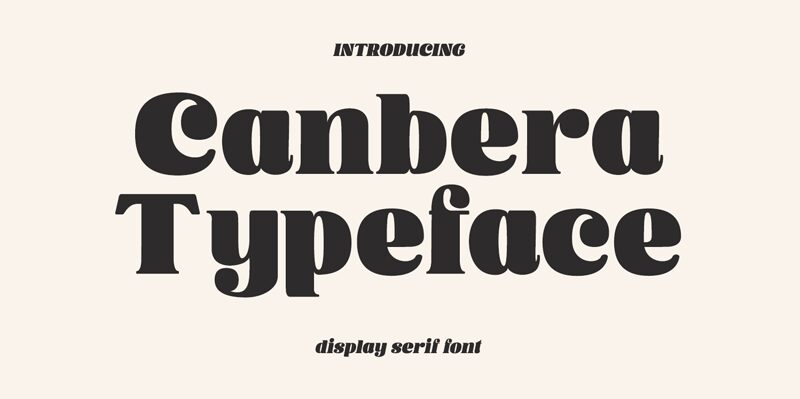
Canbera, designed by Viswell Studio, is an extraordinary extra-bold serif font that exudes a retro charm. With its distinctive and assertive strokes, this font adds a bold statement to your projects. Its timeless elegance and vintage appeal make it perfect for branding fashion labels seeking a nostalgic touch. For magazine layouts, Canbera's strong presence commands attention in headlines and subheadings, enhancing the overall visual impact. Whether used in logo design or packaging for artisanal products, this versatile typeface effortlessly combines modernity with a hint of nostalgia, making it perfect for any project that craves a touch of retro sophistication.